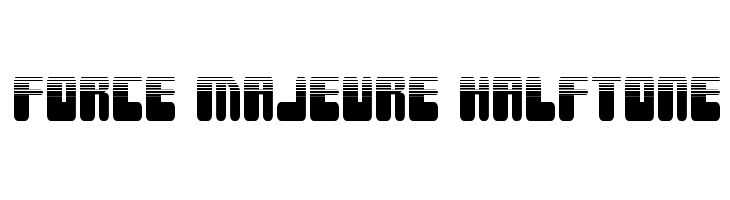
A bold, geometric, and condensed font with a modern, futuristic style.
A bold, condensed, and italicized font with a geometric and dynamic style.
A bold, engraved font with a three-dimensional, futuristic style.
A bold, engraved italic font with a three-dimensional, modern look.
A bold, geometric font with a modern, futuristic style and rounded corners.
A bold, expanded italic font with rounded edges and a modern look.
A bold, modern font with a unique gradient effect and geometric structure.
A bold, italicized font with a gradient effect and futuristic style.
A bold, geometric font with a halftone effect, perfect for modern and futuristic designs.
A bold, italicized font with a futuristic halftone effect.